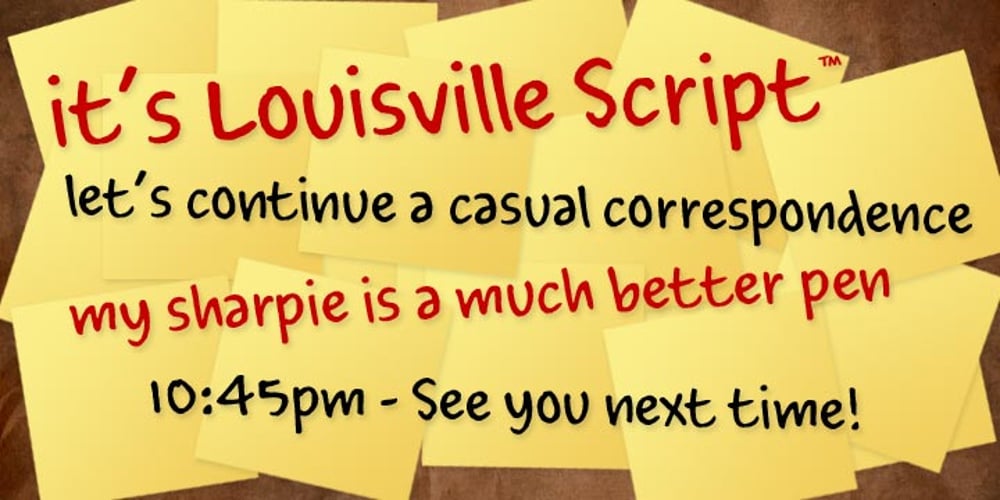
Louisville Script Font Family was designed by Steve Matteson and published by Ascender. Louisville Script contains 4 styles and family package options. Louisville Script is an informal script font based loosely on the handwriting of its designer, Steve Matteson. It was named for the town of Louisville, Colorado (pronounced “Lewis-ville”). Louisville Script is a youthful, casual handwriting script font. It is ideal for casual correspondence including cards, scrapbooks, menus and flyers. Louisville Script is also great for educational materials including the school newsletter or yearbook!